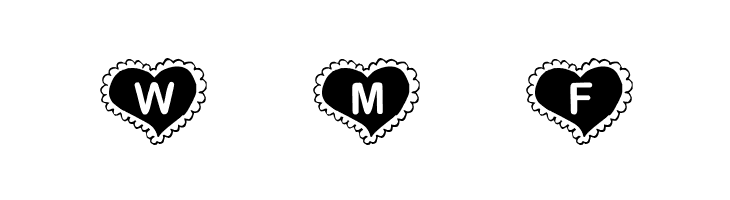
A bold, playful font with heart-shaped cutouts for a whimsical touch.
A bold, modern sans-serif font with clean, geometric lines.
A bold, modern sans-serif font with tall, narrow letterforms and uniform stroke width.
A bold, italicized font with strong, clean lines and excellent legibility.
A bold, modern sans-serif font with a strong, geometric design.
A decorative font with characters inside heart shapes, ideal for playful designs.
A decorative font with heart-themed designs and floral motifs, perfect for romantic projects.
A festive and elegant script font with medium contrast and flowing strokes.
A bold, geometric font with a cracked texture overlay, perfect for striking headlines.
A bold, traditional Gothic font with heavy, angular strokes and intricate detailing.
A bold, dynamic brush script font with expressive strokes and lively movement.
A bold, decorative font with intricate, psychedelic patterns.
A modern, sans-serif font with a clean and geometric design.
A bold, condensed font with strong vertical emphasis and minimal spacing.
A bold, graffiti-inspired font with dynamic, artistic strokes.
A bold, hand-drawn font with a rustic and organic feel.
A bold, italic font with a dynamic and impactful style.
A decorative font styled like a heartbeat line, perfect for thematic designs.
A bold, distressed font with a rugged, textured appearance ideal for impactful designs.
A bold, italicized, futuristic font with geometric and angular design.
A playful and whimsical font with bold, irregular letterforms.
A futuristic, geometric font with bold, square letterforms.
A bold, playful font with exaggerated curves and a whimsical style.
A playful, rounded font with smooth lines and a casual, friendly style.